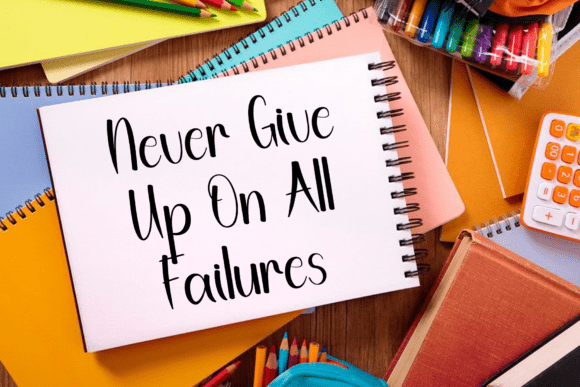
Introducing Creative Woman Font: The Perfect Blend of Casual and Creative
In the world of typography, fonts play a crucial role in conveying the tone and personality of a brand or design. When it comes to creating a warm and friendly vibe, the right font can make all the difference. This is where the Creative Woman font comes in – a casual and creative typeface that exudes warmth and friendliness. In this article, we’ll dive into the features and benefits of the Creative Woman font, and explore how it can elevate your personal projects, invitations, and social media graphics.
The Characteristics of Creative Woman Font
The Creative Woman font is characterized by its round, playful strokes that create a relaxed and approachable feel. The font’s charming, hand-drawn aesthetic adds a fun and unique touch to any design, making it perfect for those who want to add a personal touch to their work. The font’s casual and creative vibe makes it an excellent choice for a wide range of applications, from personal projects to social media graphics.
Key Features of Creative Woman Font
- Casual and Creative: The Creative Woman font is designed to be casual and creative, making it perfect for personal projects and social media graphics.
- Warm and Friendly: The font’s round, playful strokes create a warm and friendly vibe that’s perfect for invitations, greeting cards, and other personal designs.
- Hand-Drawn Aesthetic: The font’s charming, hand-drawn aesthetic adds a fun and unique touch to any design.
Use Cases for Creative Woman Font
The Creative Woman font is versatile and can be used for a wide range of applications. Here are some use cases where the font excels:
- Personal Projects: The font is perfect for personal projects, such as scrapbooking, journaling, and crafting.
- Invitations: The font’s warm and friendly vibe makes it an excellent choice for invitations, greeting cards, and other personal designs.
- Social Media Graphics: The font’s casual and creative vibe makes it perfect for social media graphics, such as Instagram posts, Facebook graphics, and Twitter headers.
- Branding: The font can be used for branding purposes, such as creating a logo or developing a brand identity.
Benefits of Using Creative Woman Font
Using the Creative Woman font offers several benefits, including:
- Unique and Creative: The font’s charming, hand-drawn aesthetic adds a unique and creative touch to any design.
- Easy to Read: The font’s round, playful strokes make it easy to read, even at small sizes.
- Versatile: The font is versatile and can be used for a wide range of applications.
Tips and Tricks for Using Creative Woman Font
Here are some tips and tricks for using the Creative Woman font:
- Use it with Images: The font looks great when paired with images, especially those with a warm and friendly tone.
- Experiment with Colors: Experiment with different colors to find the perfect combination that matches your design.
- Mix and Match: Mix and match the Creative Woman font with other fonts to create a unique and creative look.
- Pay Attention to Size: Pay attention to the font size to ensure it’s easy to read and visually appealing.
In conclusion, the Creative Woman font is a casual and creative typeface that exudes warmth and friendliness. Its round, playful strokes create a relaxed and approachable feel, making it perfect for personal projects, invitations, and social media graphics. With its charming, hand-drawn aesthetic and PUA Encoded glyphs, the font is versatile and easy to use. Whether you’re a designer, artist, or DIY enthusiast, the Creative Woman font is a great addition to your font library.
- What is the Creative Woman font? The Creative Woman font is a casual and creative typeface that exudes warmth and friendliness.
- What is the font used for? The font is perfect for personal projects, invitations, social media graphics, and branding.
- Is the font easy to read? Yes, the font’s round, playful strokes make it easy to read, even at small sizes.